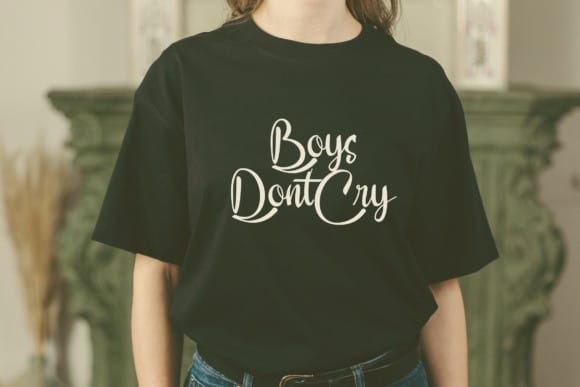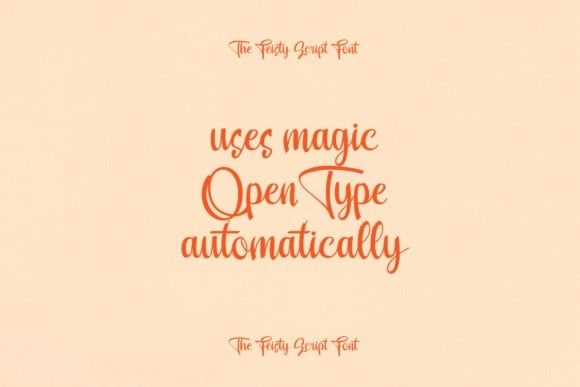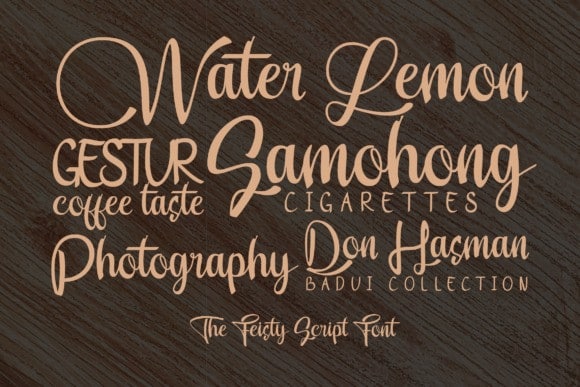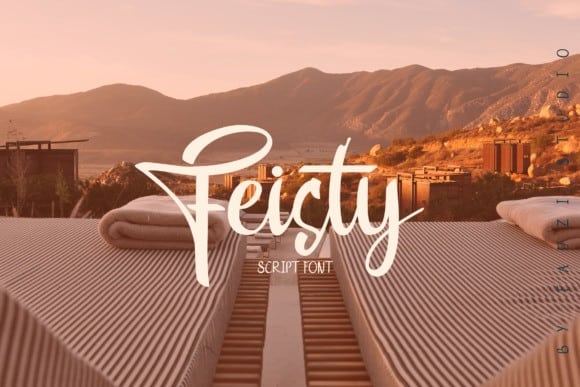
Feisty Script Font
Introducing Feisty Script Font, a new handwritten font. This stylish font features a messy, casual look and ligatures to enhance the flow of the handwriting look & feel of your project! Made from font designer named intuisicreative. It’s a bold yet incredibly elegant handwritten font. Distinct and flowing, this font is the perfect choice for a wide pool of designs. Add it to your most creative ideas and notice how it makes them come alive!